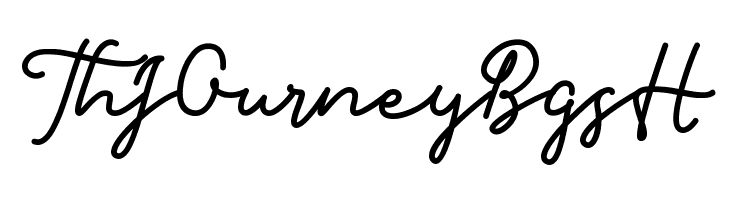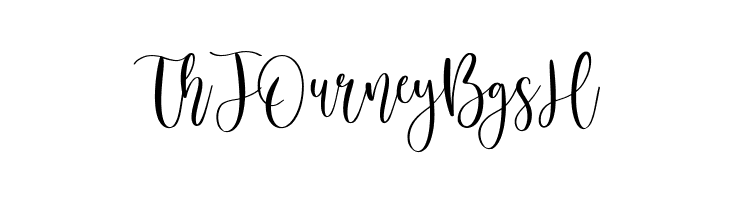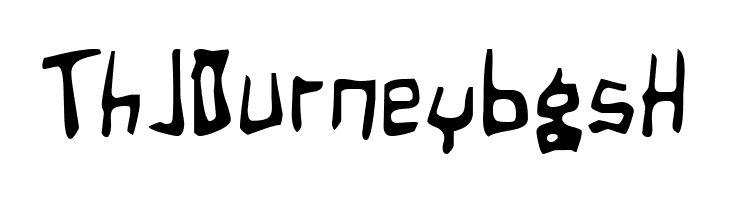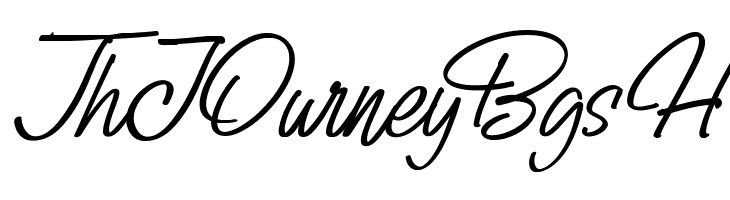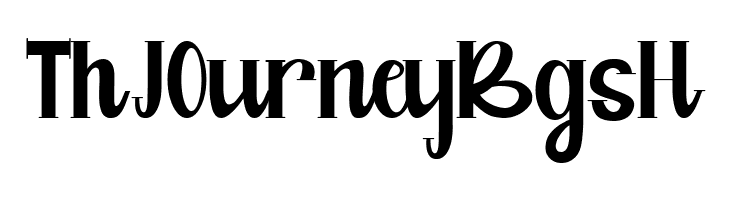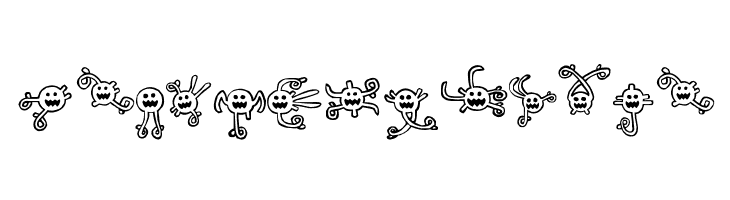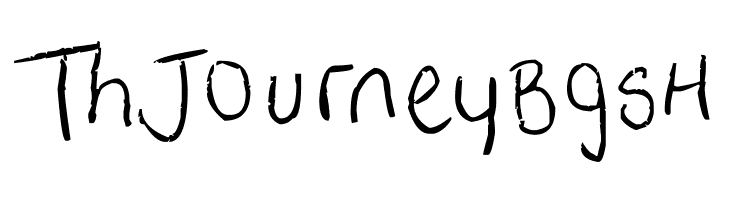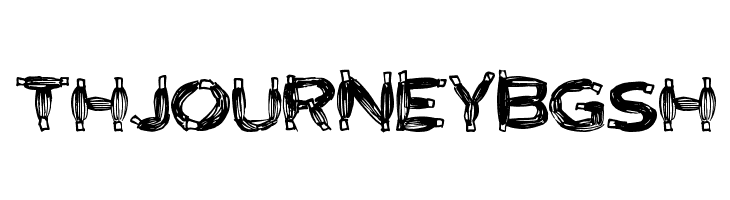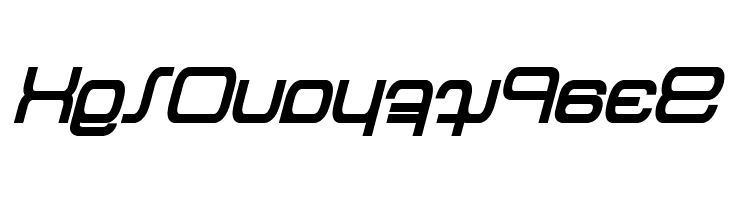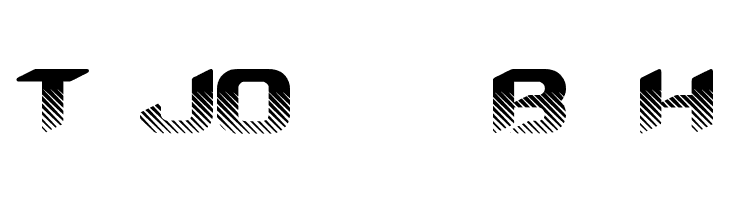
• Halloween Kingdom
A playful, spooky font with curled accents and dripping effects, perfect for Halloween themes.
• Halloween Monoline - Personal U
A playful monoline font with flowing, interconnected strokes.
• Halloween Park
A bold, dripping decorative font ideal for spooky or Halloween themes.
• Halloween Party St
A spooky, Halloween-themed font with spider web and spider accents.
• HamburgSymbols
• Hand Crafted Italic
A bold, italicized font with high contrast and a hand-crafted feel.
• Handcaster
An elegant, cursive font with flowing, intricate strokes.
• HandScript LCase 4LR
• HandWork
A playful, casual handwritten font with smooth, flowing lines.
• handwriting-draft_free-version
A hand-drawn, sketch-style font with textured outlines.
• Handwritten Crystal v2
• Hanindya
An elegant script font with intricate swirls and high contrast strokes.
• HannaHandwriting
A playful, casual handwritten font with smooth, flowing lines.
• Hanooman
A playful handwritten font with tall, narrow letterforms and a casual style.
• Hanster
A playful and casual handwritten font with fluid, connected strokes.
• Hantu - Personal Use
A playful, ghost-themed decorative font perfect for Halloween projects.
• Hanuman
A modern sans-serif font with clean lines and geometric shapes.
• Hanuman Bold
A bold, modern sans-serif font with excellent legibility and balanced character spacing.
• Hanuman Regular
A modern sans-serif font with clean lines and balanced proportions.
• happy offsprings of plankton
• HappyLines
A playful, hand-drawn font with a whimsical and informal style.
• Hard Dumb
A chaotic, graffiti-inspired font with jagged, hand-drawn letters.
• Harelia